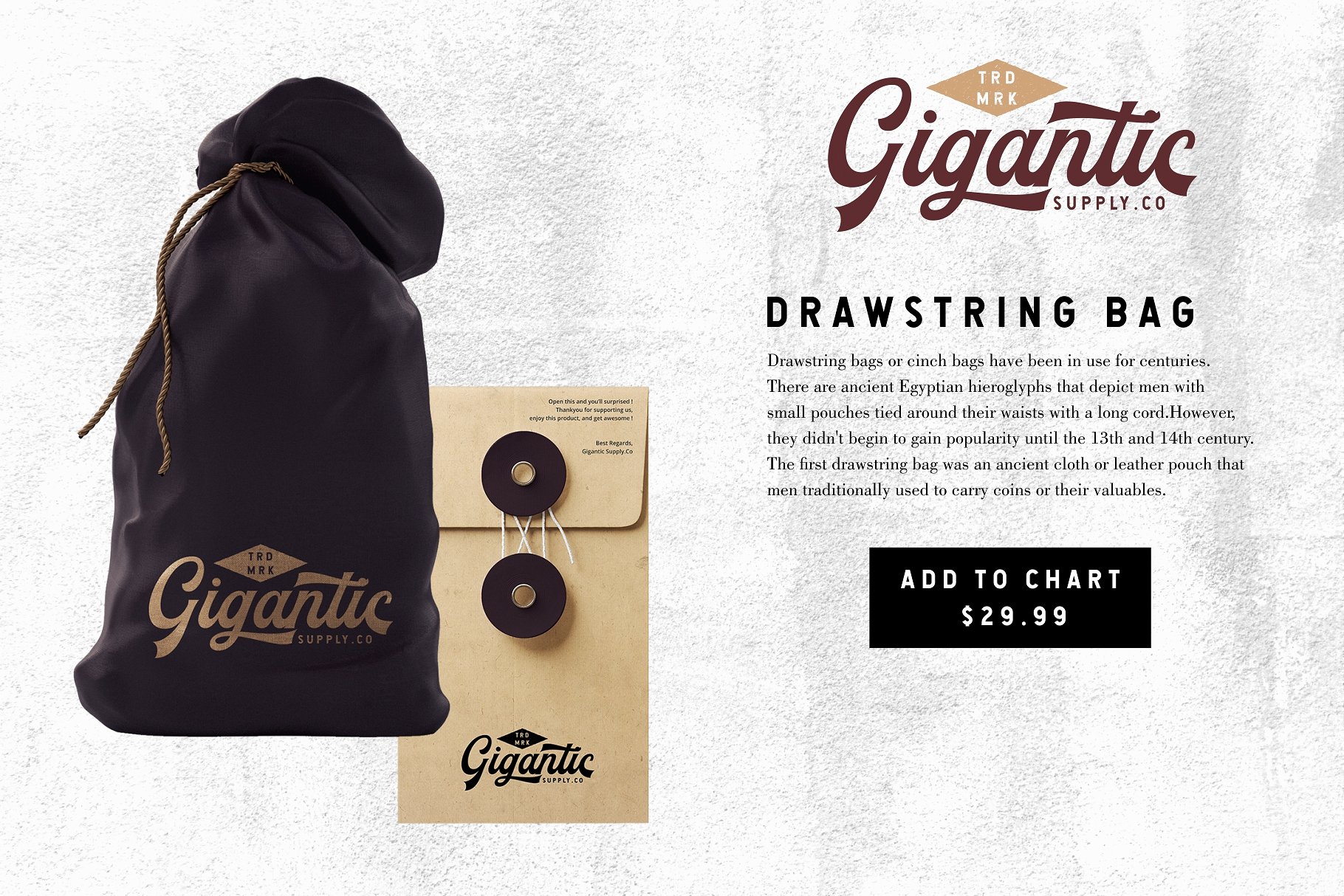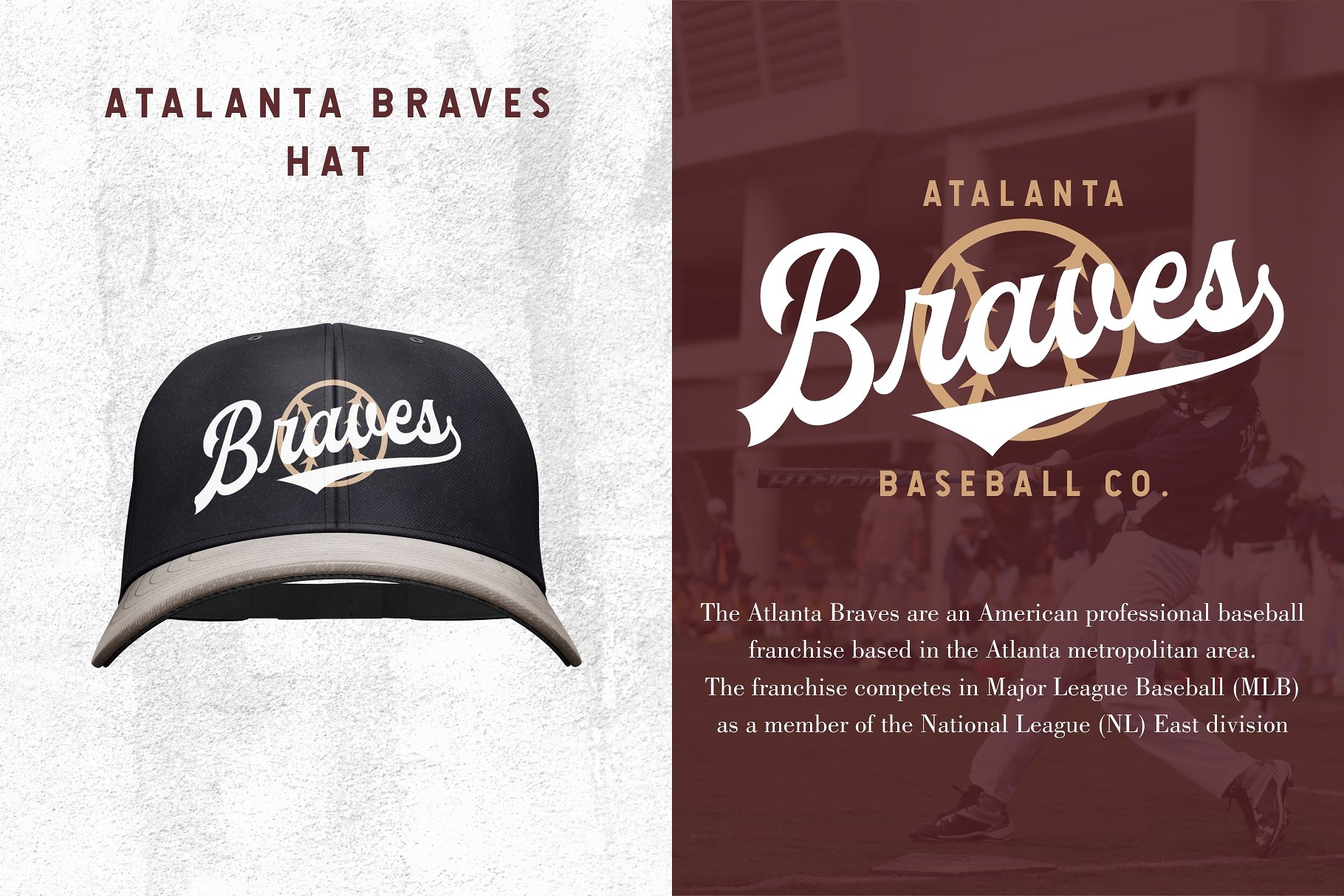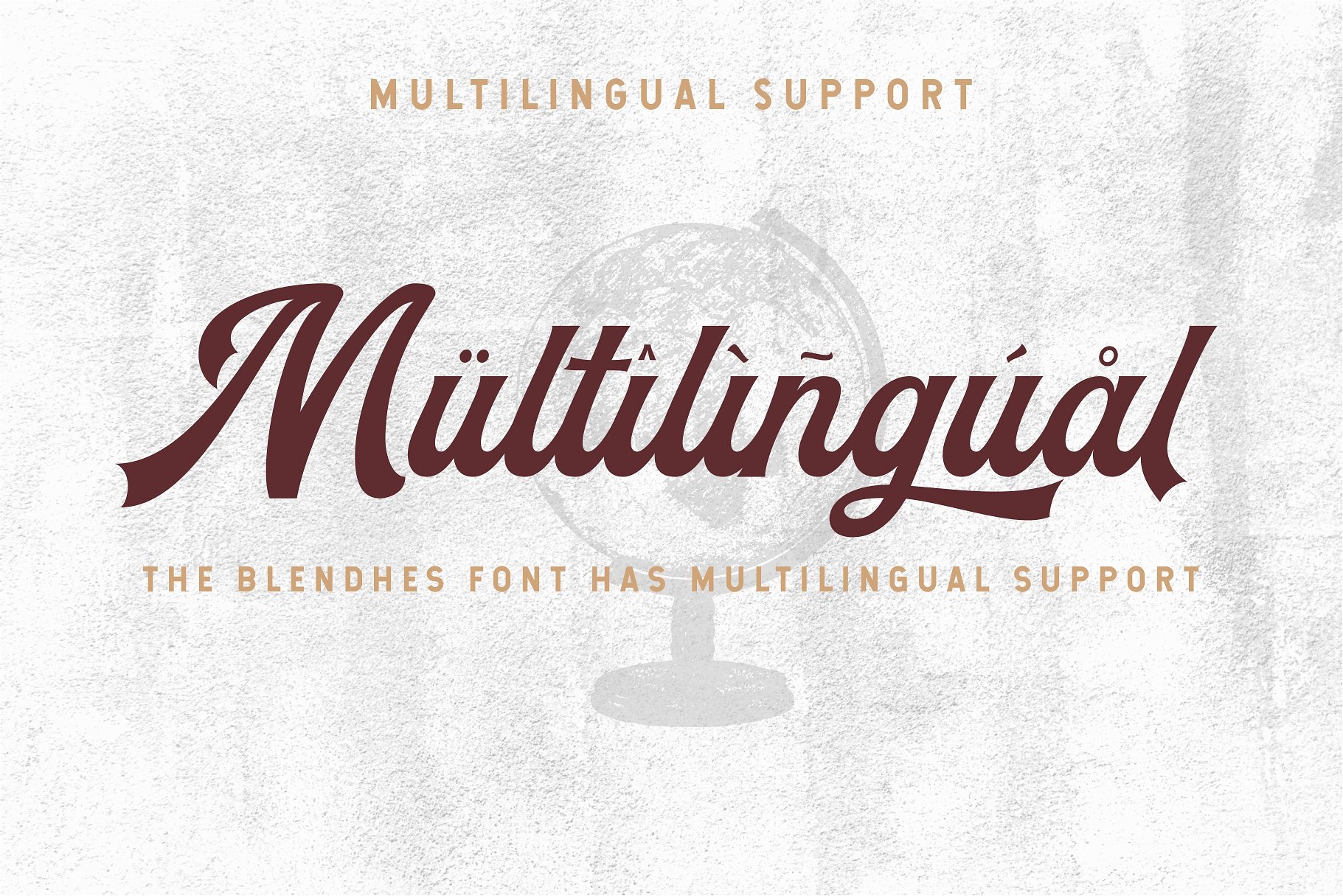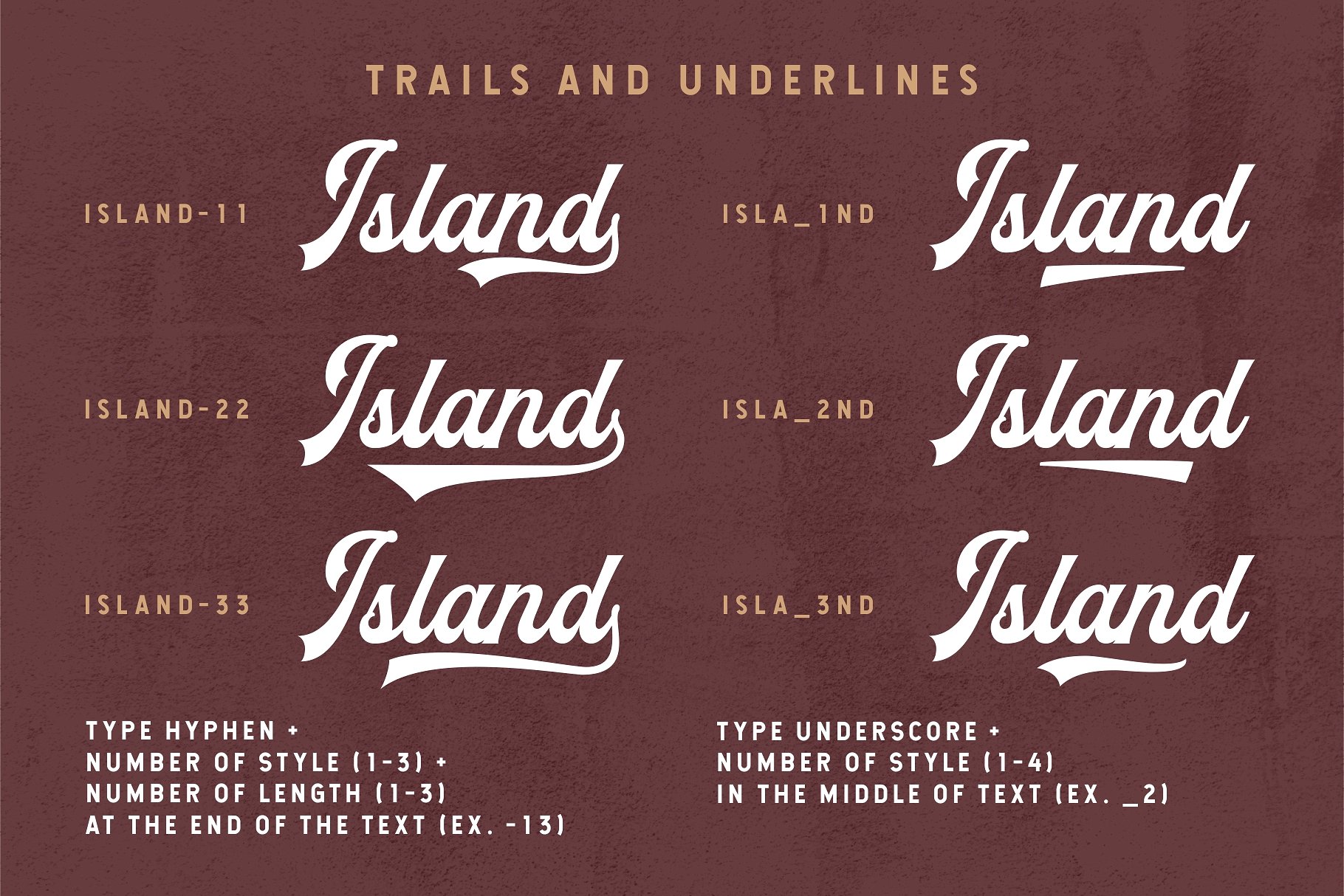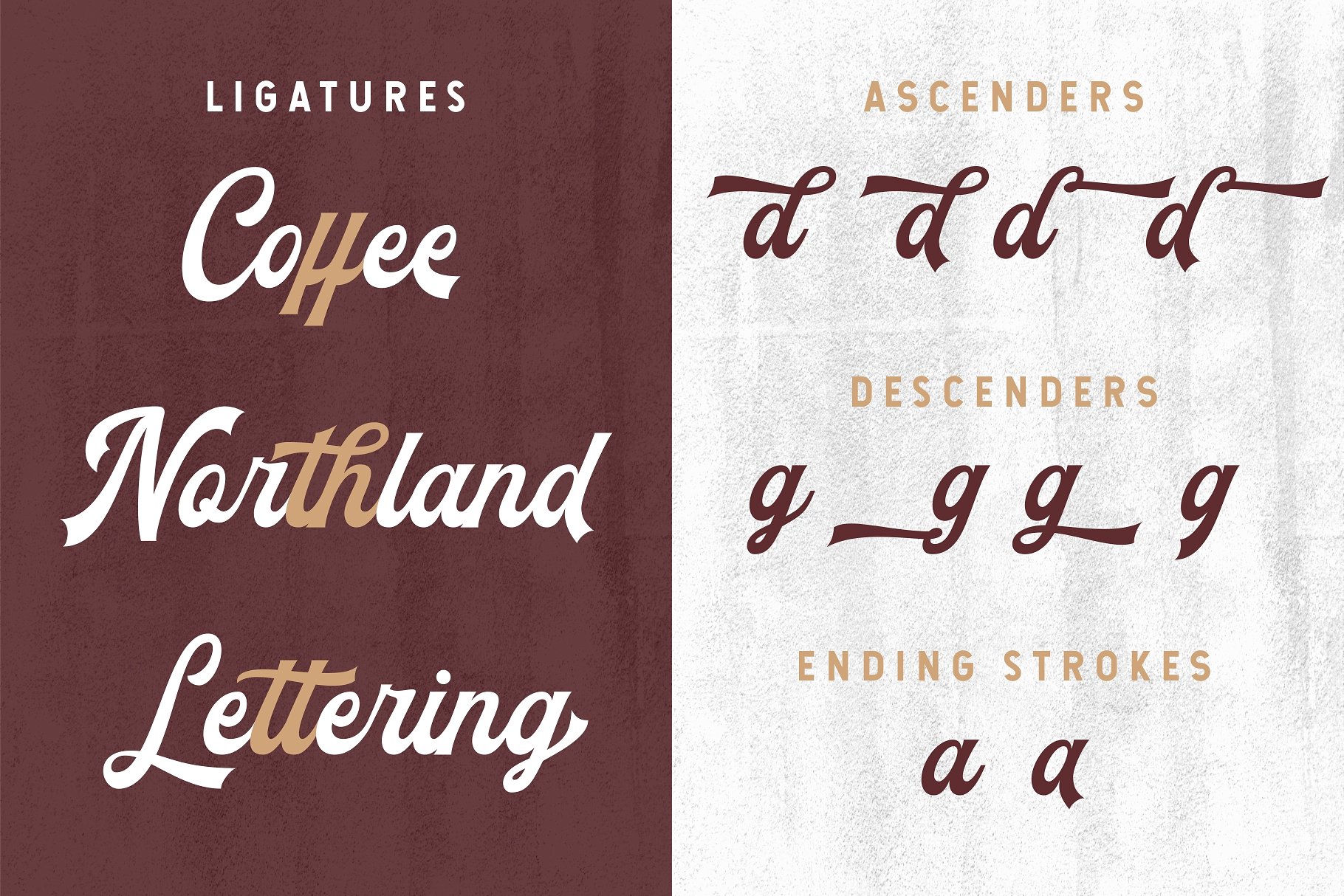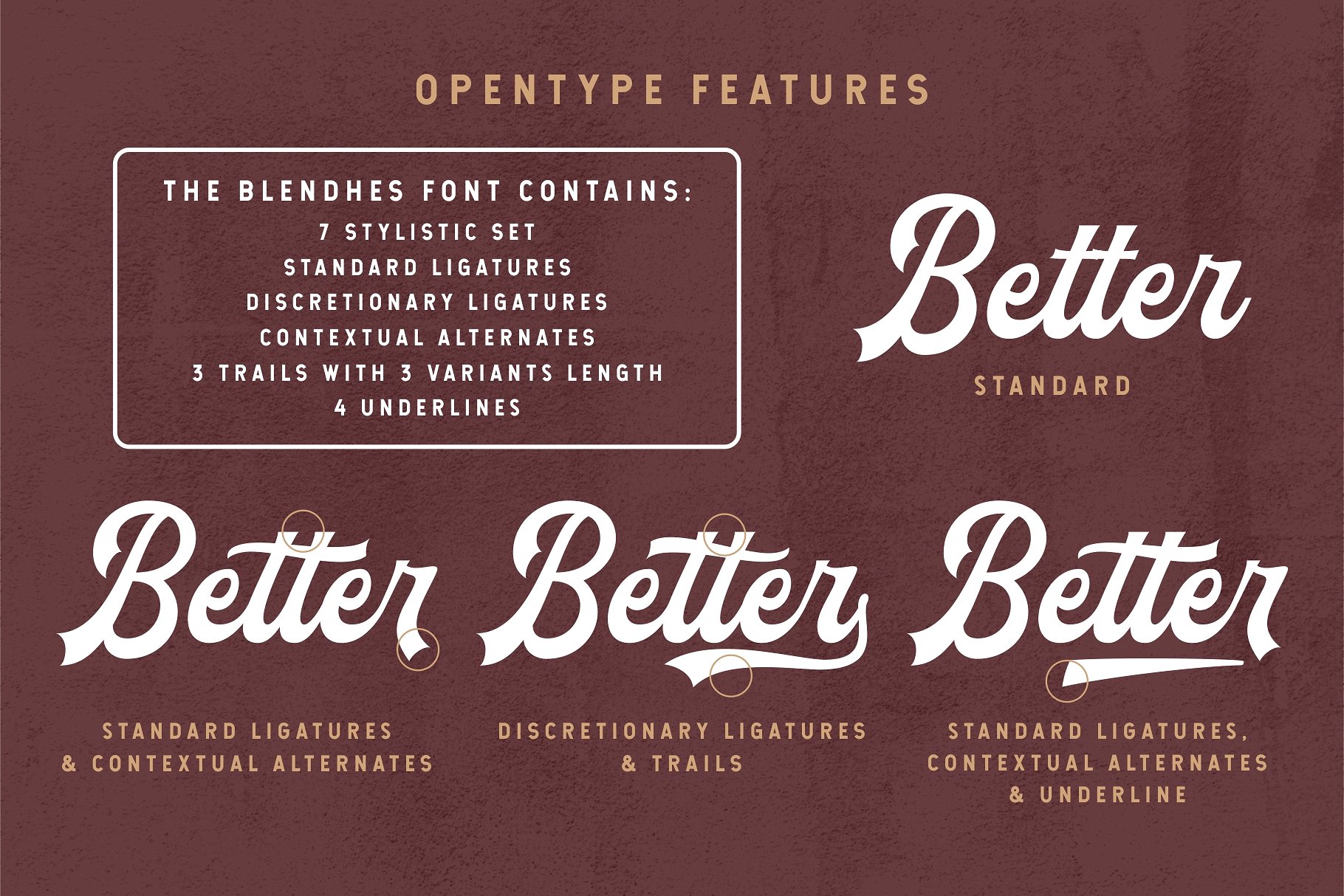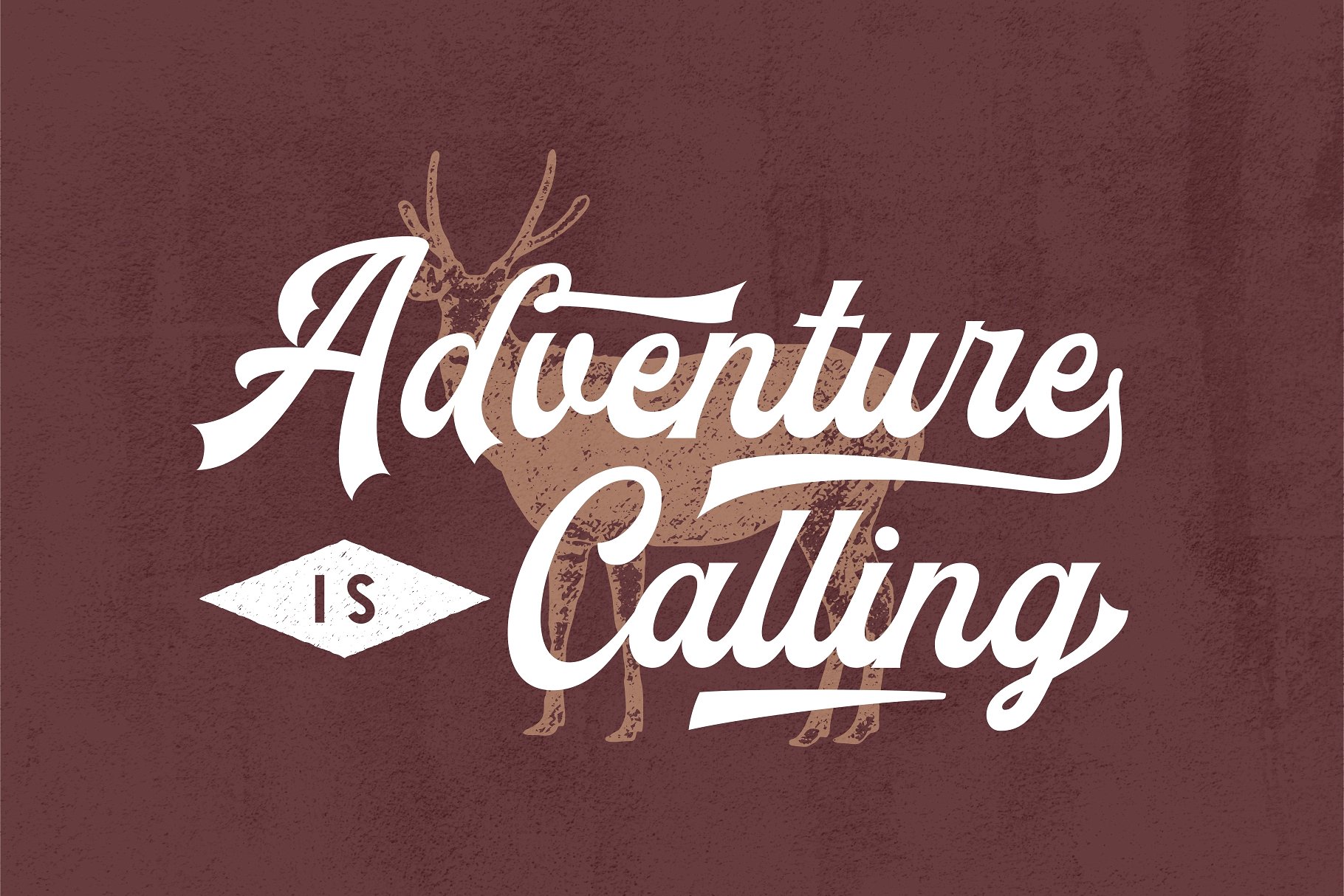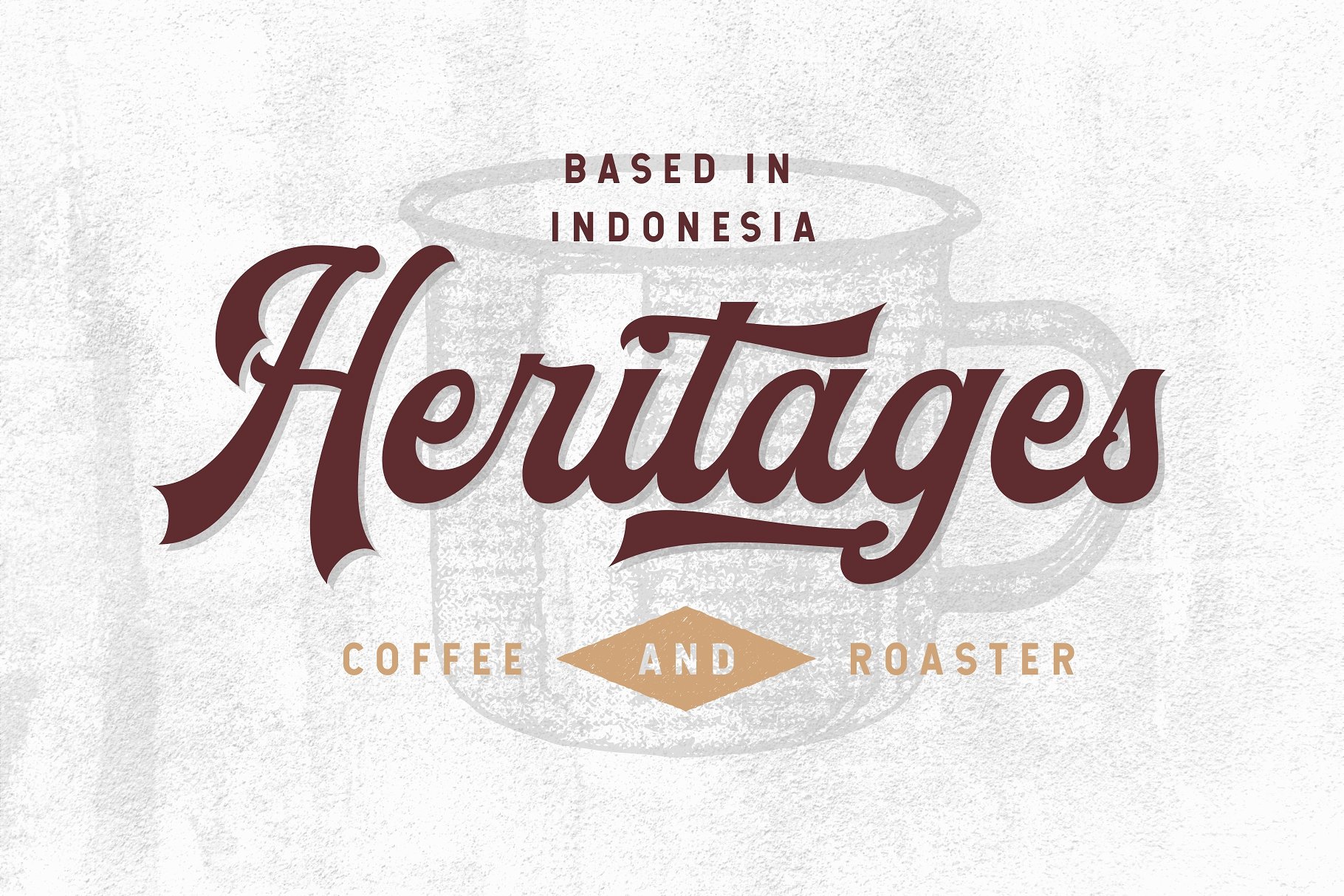
Created by Yudha Ageng, The Blendhes is a strong bold script font inspired from the vintage baseball sport design. With the OpenType Features, The Blendhes gives you so many options to add awesomeness to your projects. Mix and match the alternate characters to add an attractive message to your design. Download the demo version below and check the full version here. The demo version is free for personal use.